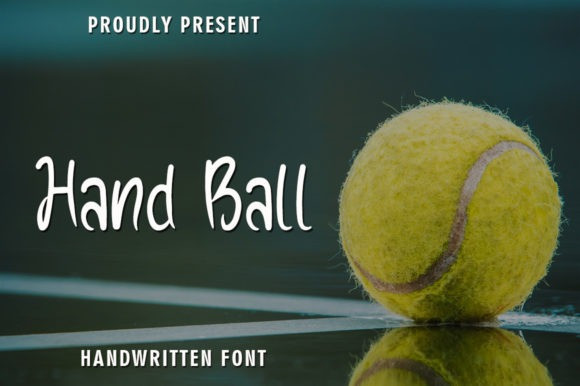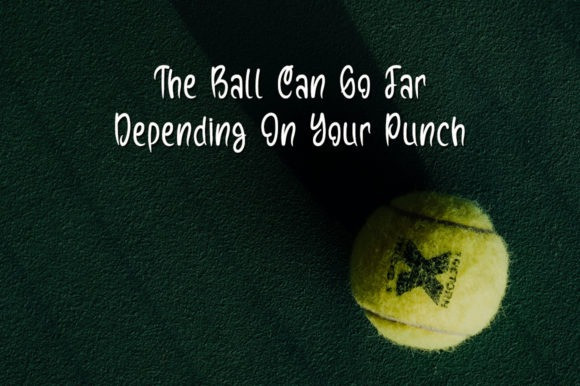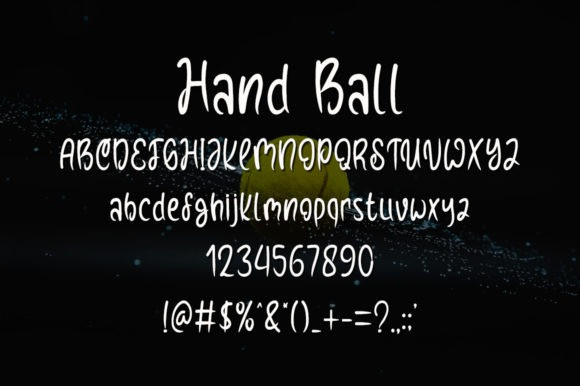
Hand Ball Display Font
Hand Ball is a sweet and simple Display font. Its unique style makes this font incredibly versatile, fitting a wide range of designs. Add it to your most creative ideas and notice how it makes them come alive!